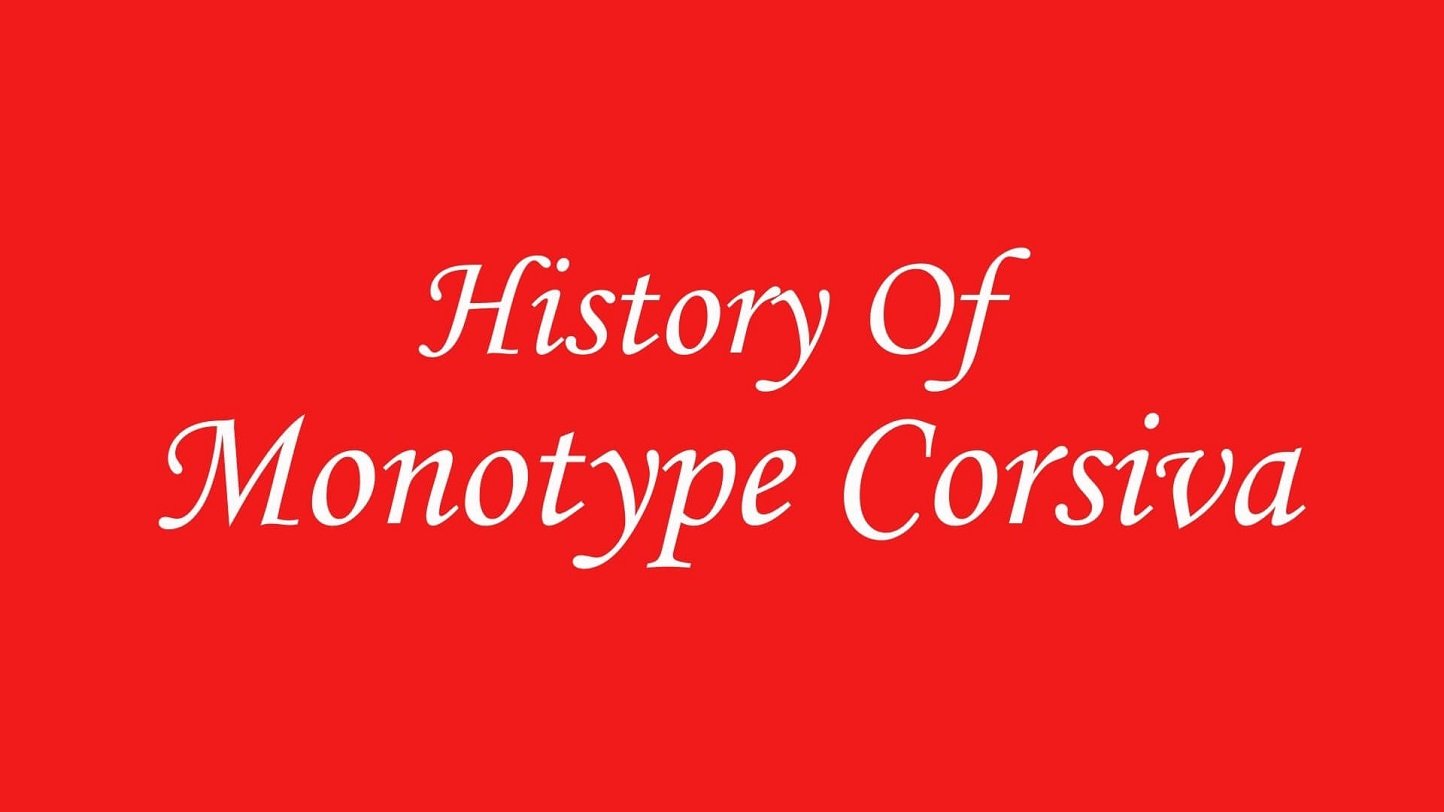
Monotype Corsiva Font Generator - Discover the free monotype corsiva bold font at free font download ! Transform your text into a star. The ai engine used by monotype fonts for font pairing evaluates fonts and suggests suitable options for body text based on their typographic. Monotype corsiva is renowned for its delicate, cursive design that mimics handwriting. Installable on pc, mac, linux, ios, and android platforms.
Transform your text into a star. The ai engine used by monotype fonts for font pairing evaluates fonts and suggests suitable options for body text based on their typographic. Installable on pc, mac, linux, ios, and android platforms. Monotype corsiva is renowned for its delicate, cursive design that mimics handwriting. Discover the free monotype corsiva bold font at free font download !
The ai engine used by monotype fonts for font pairing evaluates fonts and suggests suitable options for body text based on their typographic. Monotype corsiva is renowned for its delicate, cursive design that mimics handwriting. Discover the free monotype corsiva bold font at free font download ! Installable on pc, mac, linux, ios, and android platforms. Transform your text into a star.
The ai engine used by monotype fonts for font pairing evaluates fonts and suggests suitable options for body text based on their typographic. Monotype corsiva is renowned for its delicate, cursive design that mimics handwriting. Transform your text into a star. Installable on pc, mac, linux, ios, and android platforms. Discover the free monotype corsiva bold font at free font.
Transform your text into a star. Discover the free monotype corsiva bold font at free font download ! Monotype corsiva is renowned for its delicate, cursive design that mimics handwriting. Installable on pc, mac, linux, ios, and android platforms. The ai engine used by monotype fonts for font pairing evaluates fonts and suggests suitable options for body text based on.
Discover the free monotype corsiva bold font at free font download ! Monotype corsiva is renowned for its delicate, cursive design that mimics handwriting. The ai engine used by monotype fonts for font pairing evaluates fonts and suggests suitable options for body text based on their typographic. Transform your text into a star. Installable on pc, mac, linux, ios, and.
Discover the free monotype corsiva bold font at free font download ! Monotype corsiva is renowned for its delicate, cursive design that mimics handwriting. The ai engine used by monotype fonts for font pairing evaluates fonts and suggests suitable options for body text based on their typographic. Installable on pc, mac, linux, ios, and android platforms. Transform your text into.
Monotype corsiva is renowned for its delicate, cursive design that mimics handwriting. Discover the free monotype corsiva bold font at free font download ! The ai engine used by monotype fonts for font pairing evaluates fonts and suggests suitable options for body text based on their typographic. Transform your text into a star. Installable on pc, mac, linux, ios, and.
The ai engine used by monotype fonts for font pairing evaluates fonts and suggests suitable options for body text based on their typographic. Transform your text into a star. Installable on pc, mac, linux, ios, and android platforms. Discover the free monotype corsiva bold font at free font download ! Monotype corsiva is renowned for its delicate, cursive design that.
Installable on pc, mac, linux, ios, and android platforms. Transform your text into a star. Discover the free monotype corsiva bold font at free font download ! The ai engine used by monotype fonts for font pairing evaluates fonts and suggests suitable options for body text based on their typographic. Monotype corsiva is renowned for its delicate, cursive design that.
Monotype corsiva is renowned for its delicate, cursive design that mimics handwriting. Installable on pc, mac, linux, ios, and android platforms. The ai engine used by monotype fonts for font pairing evaluates fonts and suggests suitable options for body text based on their typographic. Discover the free monotype corsiva bold font at free font download ! Transform your text into.
Transform your text into a star. Monotype corsiva is renowned for its delicate, cursive design that mimics handwriting. Discover the free monotype corsiva bold font at free font download ! The ai engine used by monotype fonts for font pairing evaluates fonts and suggests suitable options for body text based on their typographic. Installable on pc, mac, linux, ios, and.
Installable on pc, mac, linux, ios, and android platforms. Monotype corsiva is renowned for its delicate, cursive design that mimics handwriting. Discover the free monotype corsiva bold font at free font download ! The ai engine used by monotype fonts for font pairing evaluates fonts and suggests suitable options for body text based on their typographic.